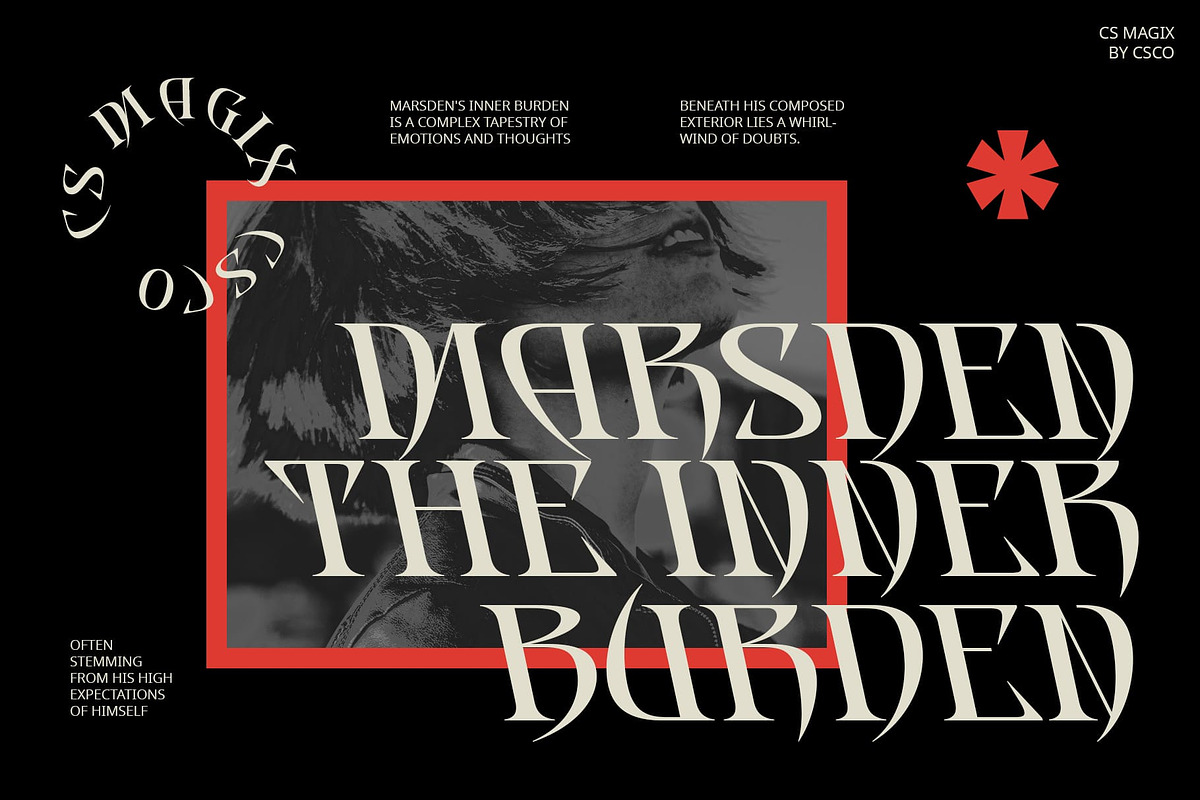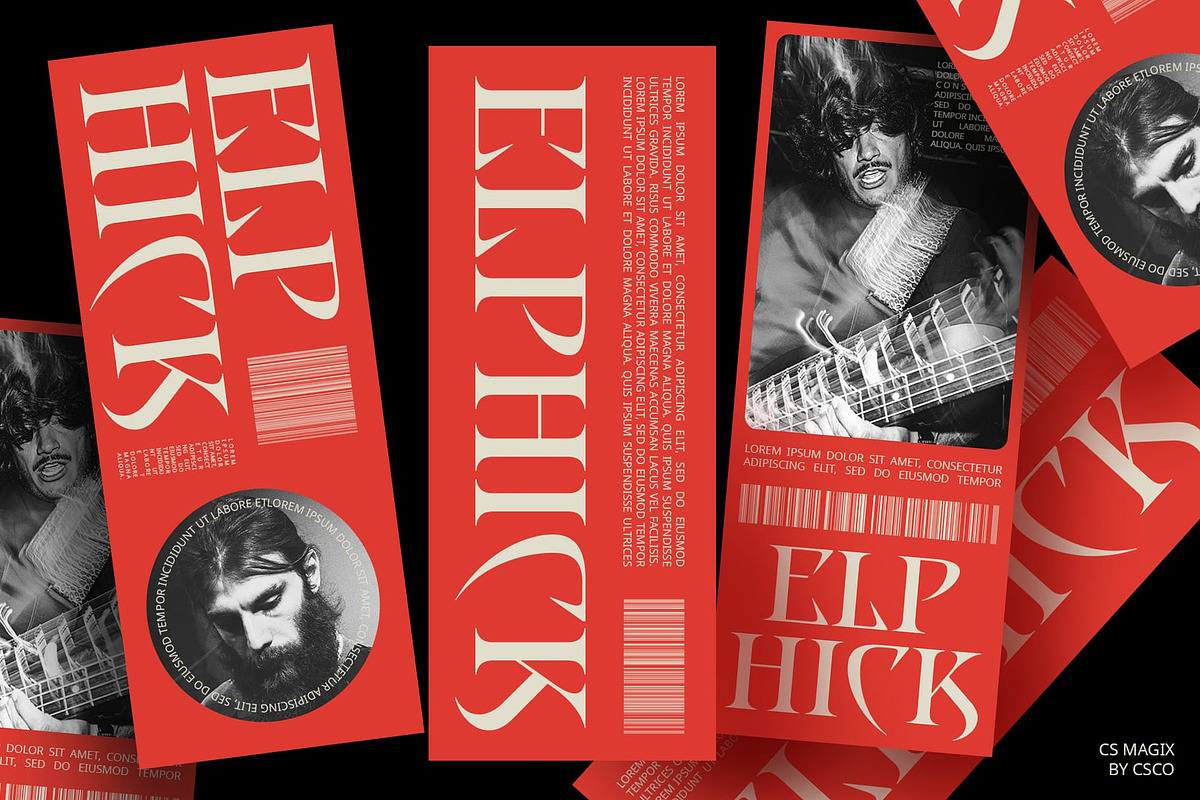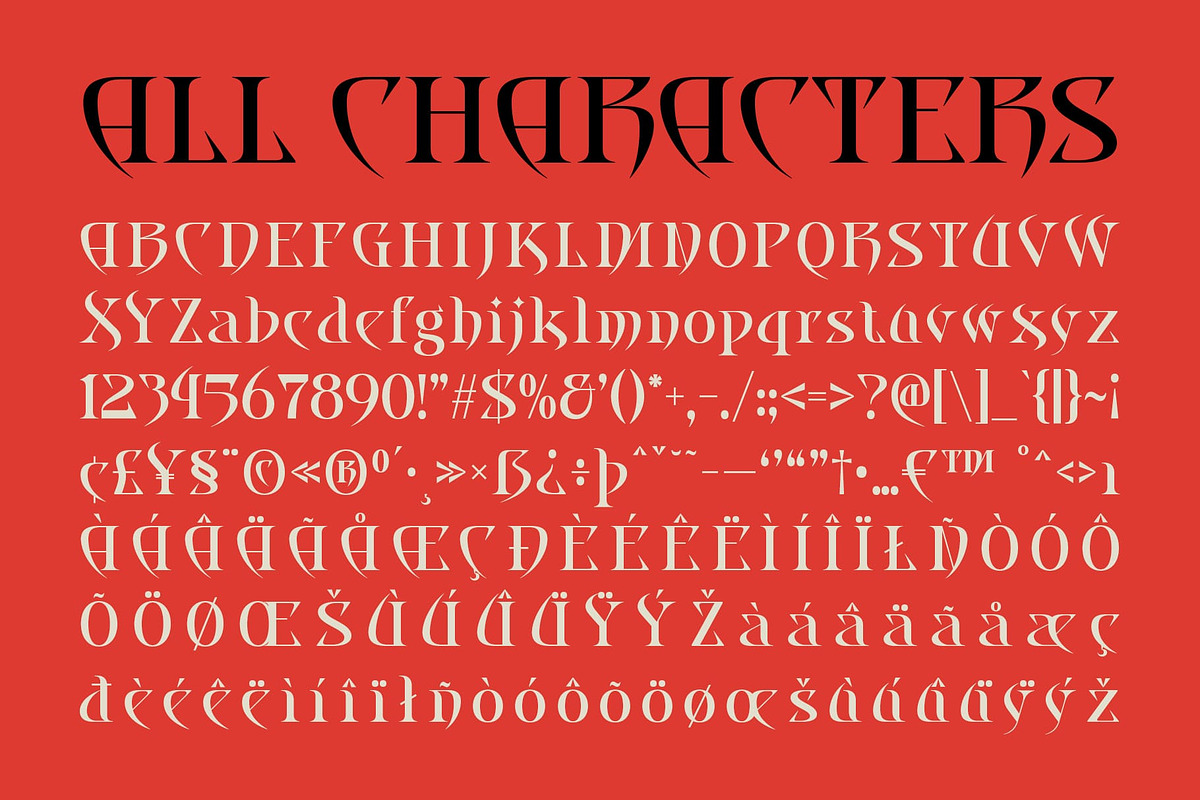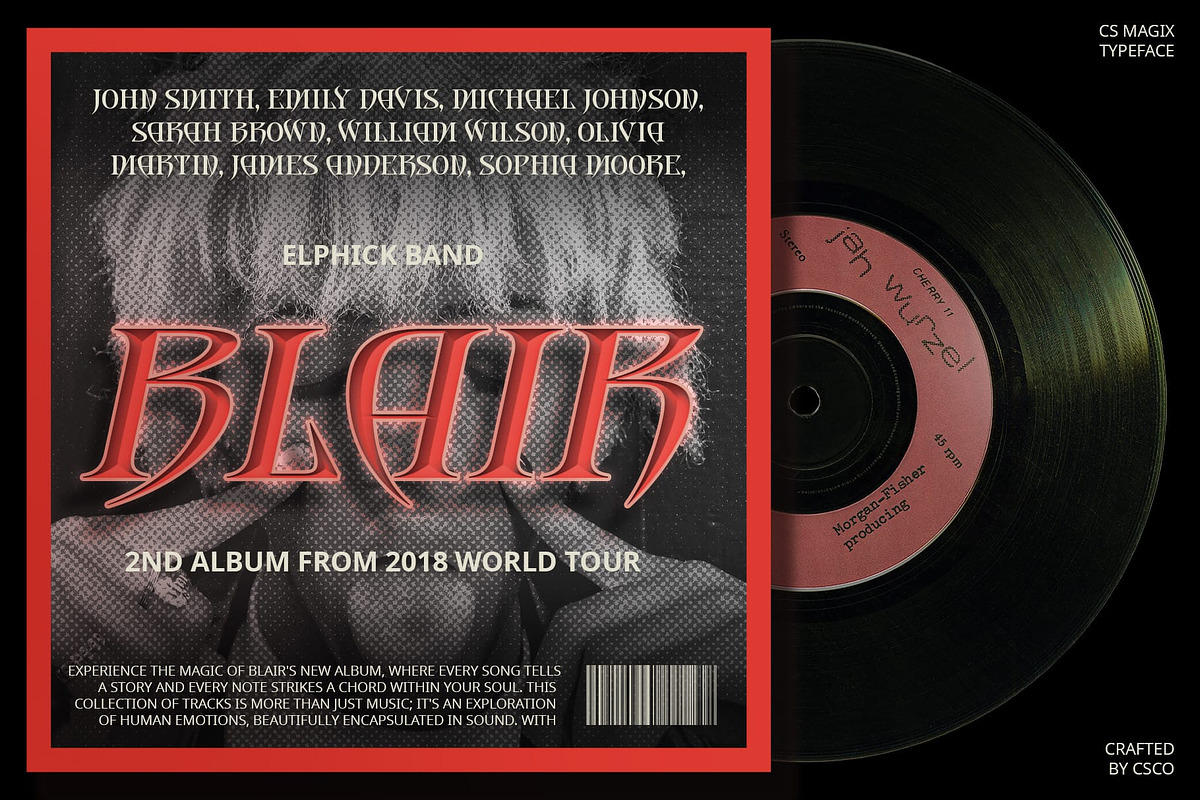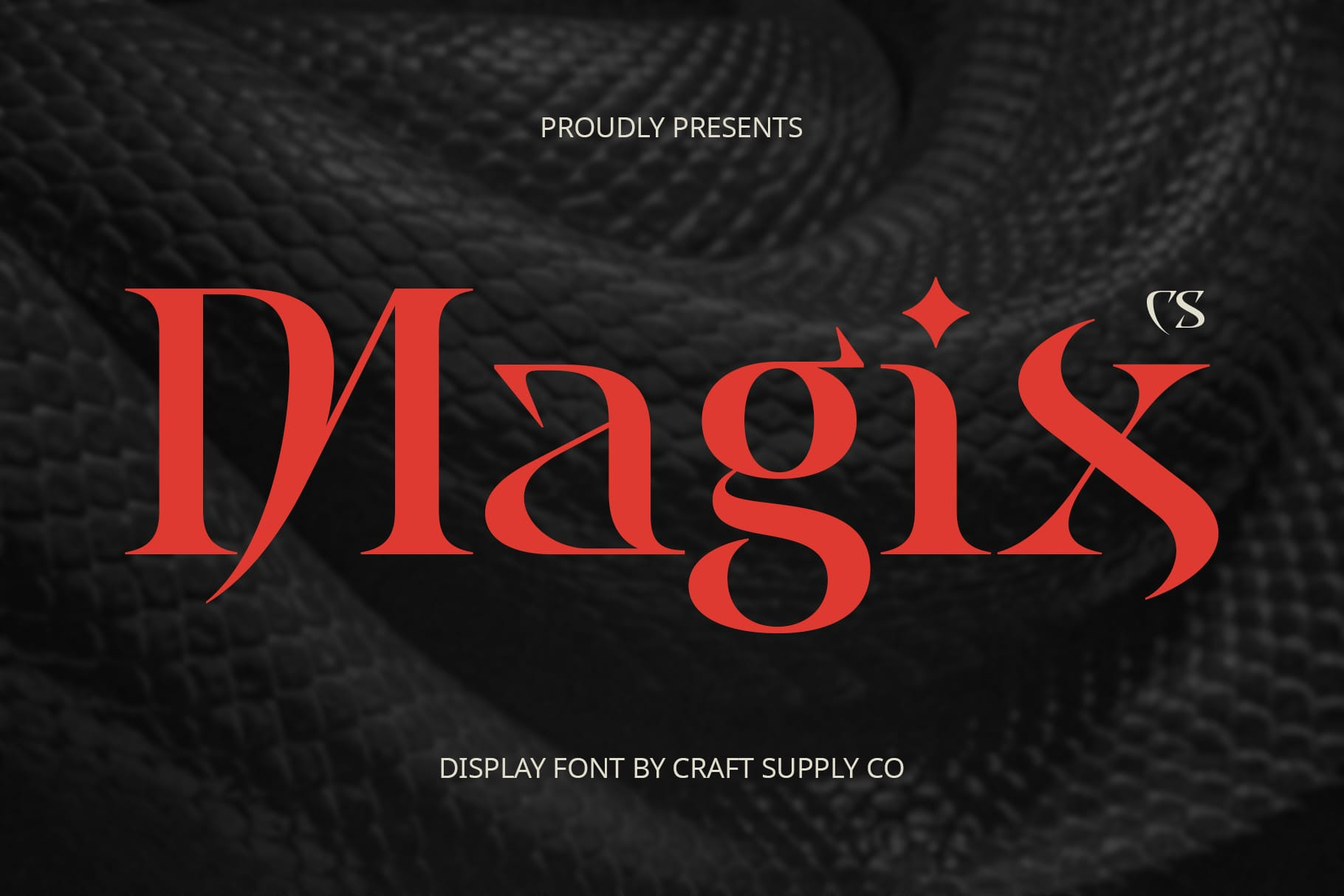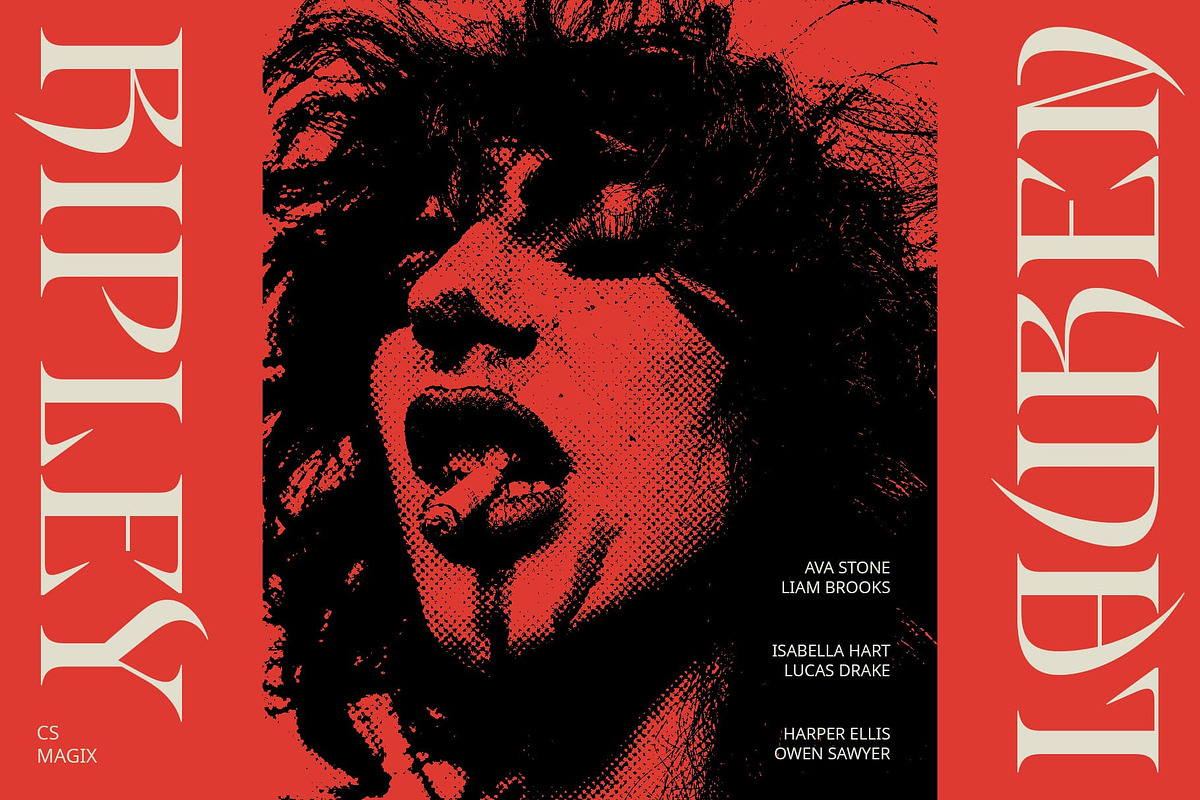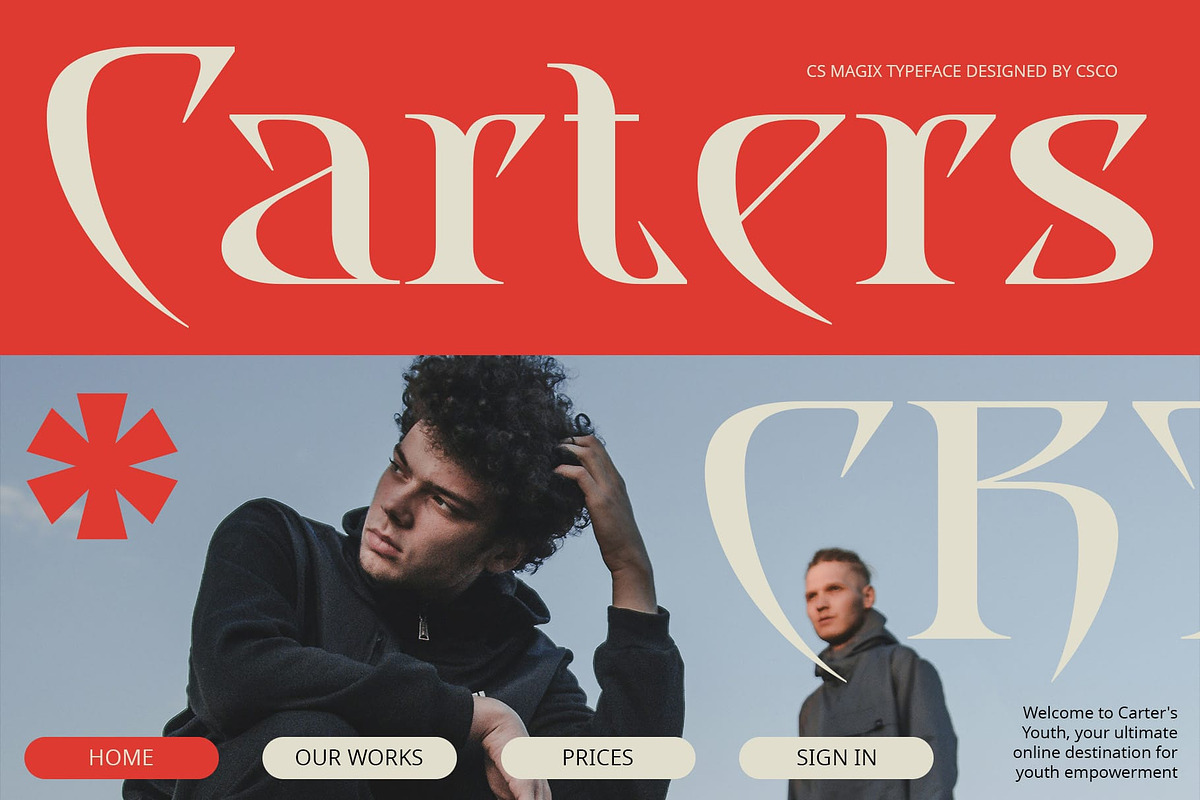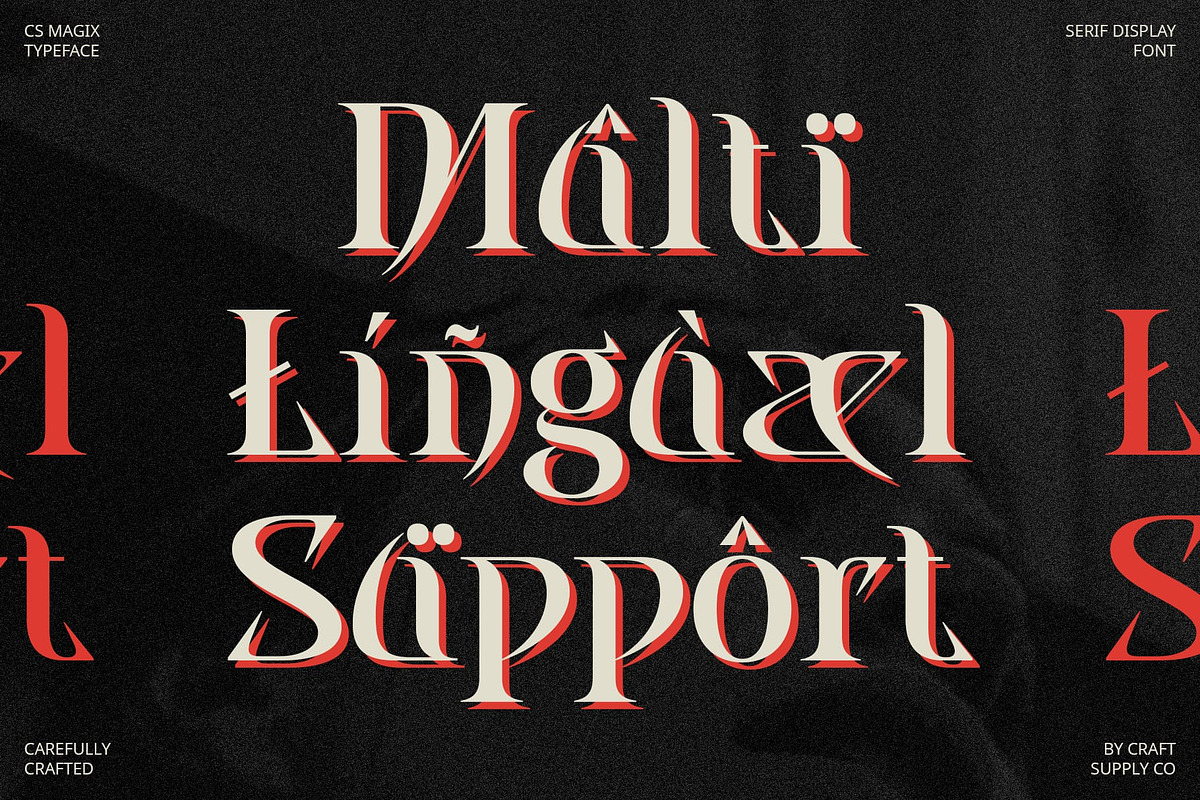
CS Magix – Display Serif Font
CS Magix – Display Serif Font: Classic Elegance with a Modern Twist
Introduction CS Magix is a refined display serif font that combines classic serif elements with contemporary design. Perfect for elegant and sophisticated projects, it adds a touch of modernity to editorial layouts, branding, and web designs.
Classic Serif Elements CS Magix incorporates classic serif elements, providing a timeless and elegant look. Its refined serifs add a touch of sophistication, making it suitable for projects that require a traditional yet stylish appearance.
Contemporary Design The contemporary design of CS Magix ensures that it remains relevant in modern design contexts. Its clean lines and balanced proportions create a harmonious blend of classic and modern aesthetics.
Ideal for Elegant Projects Whether you’re working on editorial layouts, branding, or web designs, CS Magix is an ideal choice for adding elegance and sophistication. Its unique combination of classic and contemporary elements makes it versatile for various design applications.
Enhance Your Designs with CS Magix can elevate your designs by providing a refined and stylish look. Its display serif design is perfect for creating a distinguished appearance, whether you’re designing for print or digital media. Use CS Magix to bring a touch of classic elegance and modern sophistication to your next project.